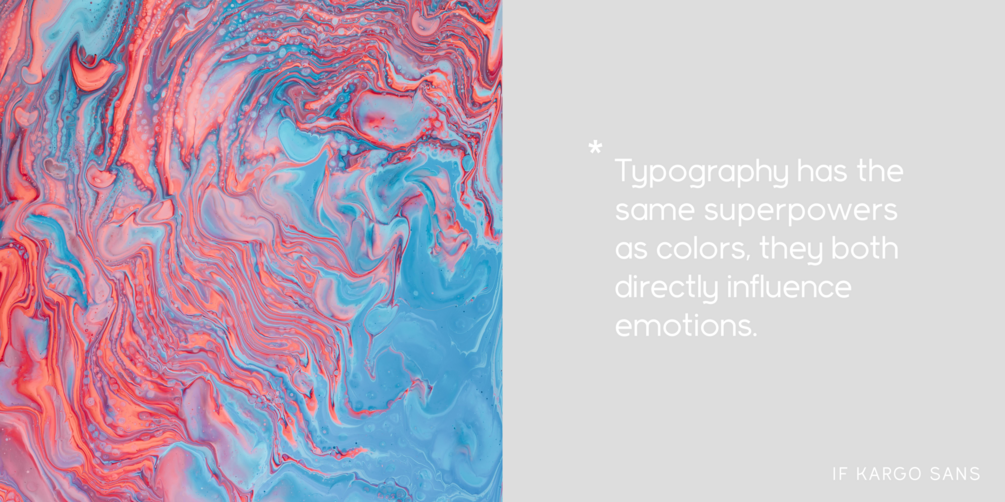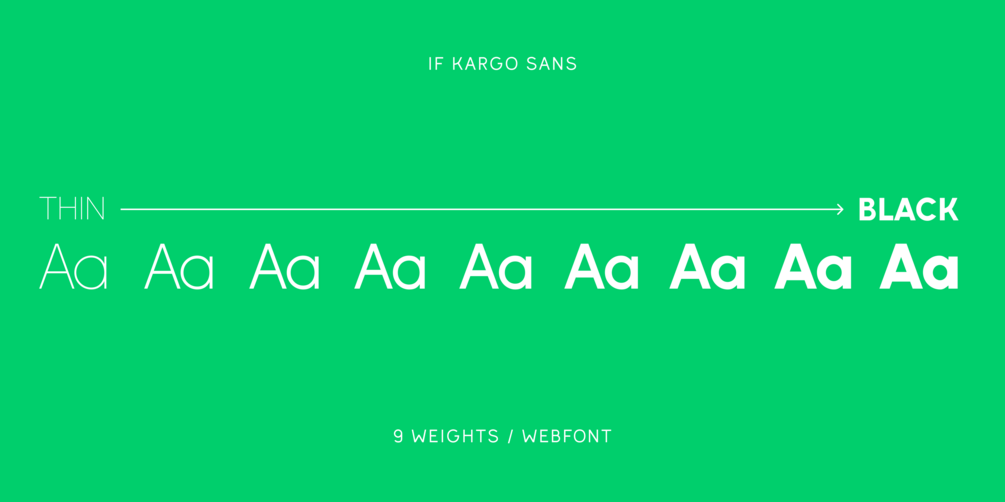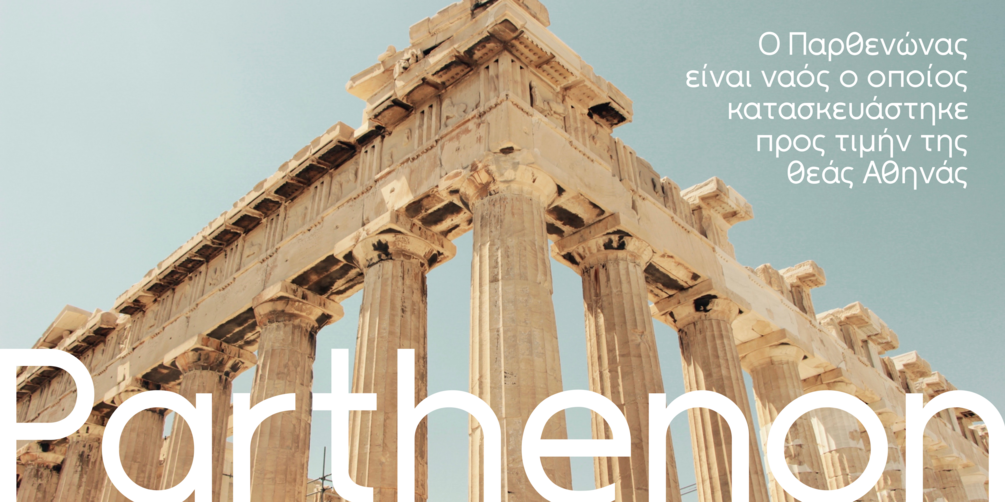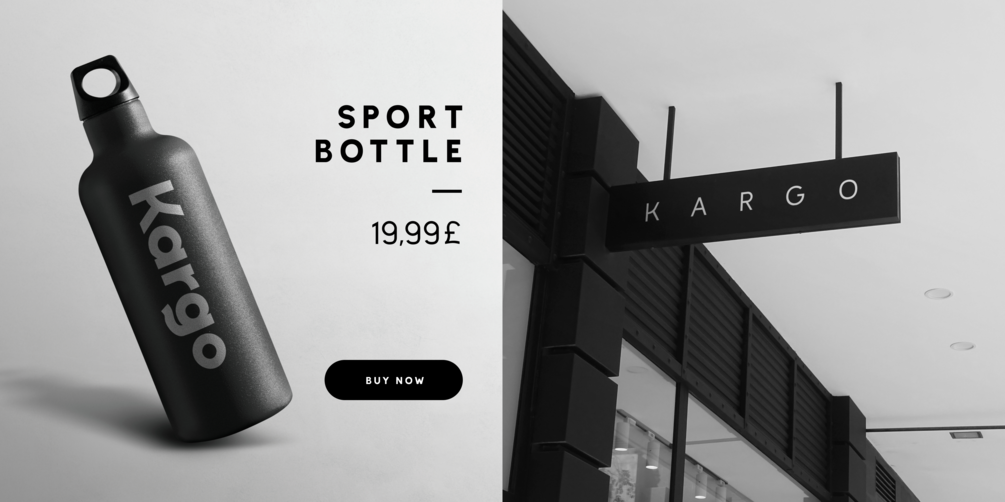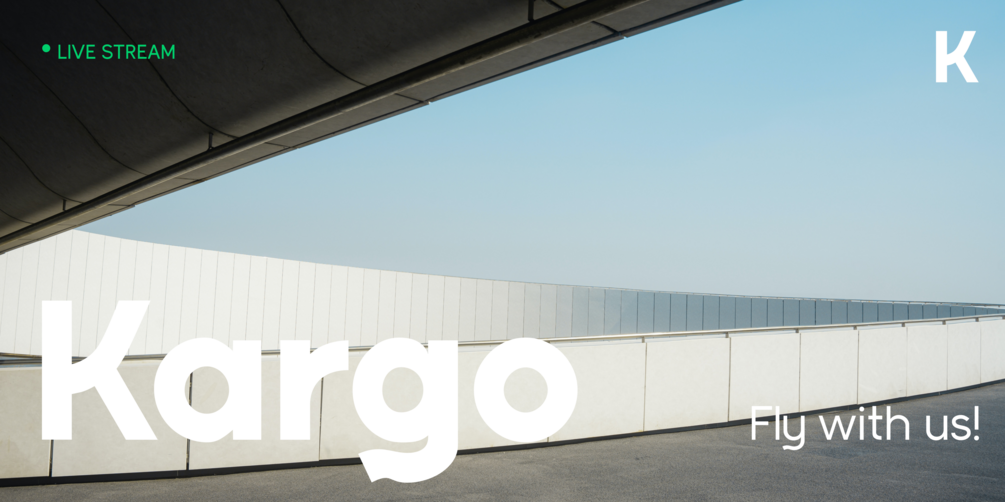
Kargo Sans Family Pack
Kargo Sans font is a great choice for sleek, modern logos, packaging and branding.
- 9 weights
- Variable
- Script: Latin & Greek
- 545 glyphs